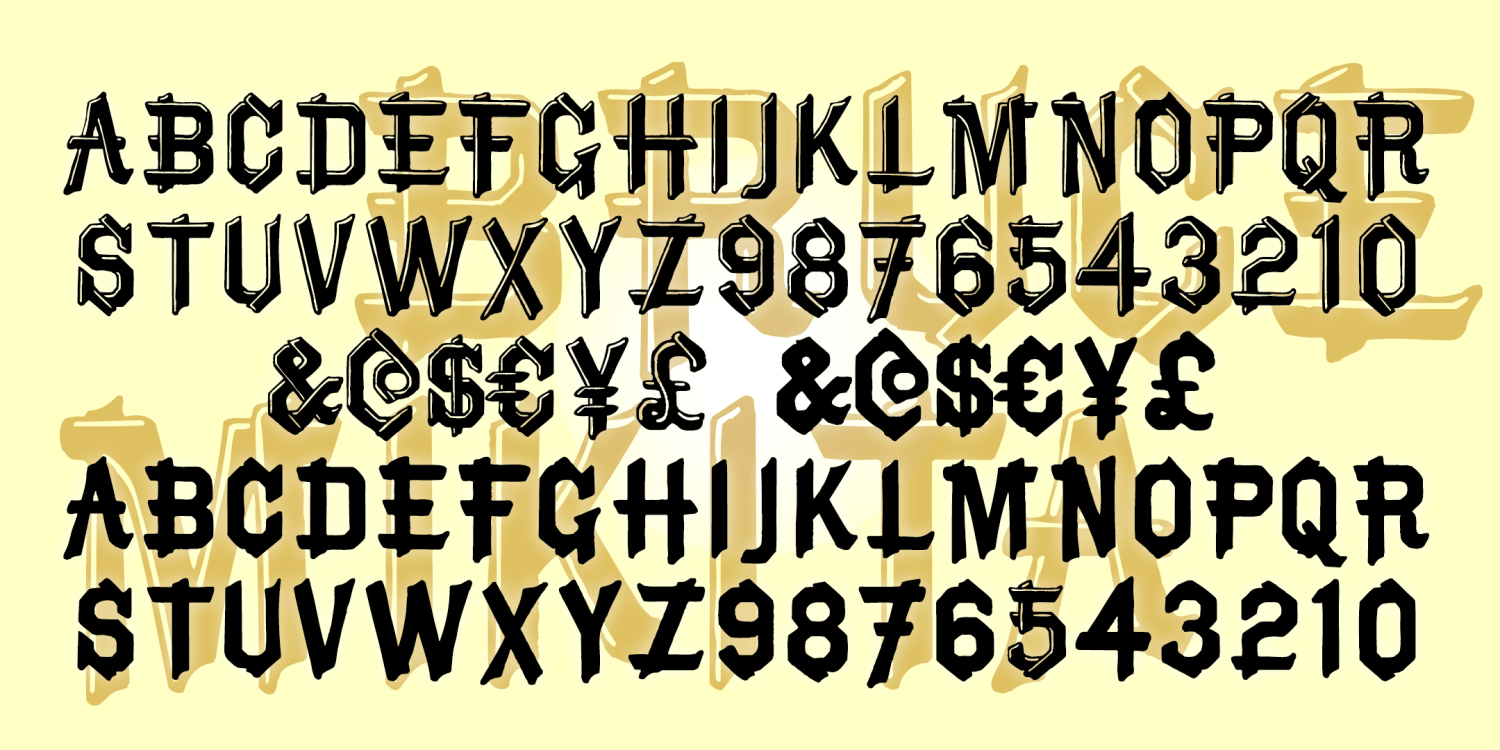
Bruce Mikita
BRUCE MIKITA was inspired by an analog font of the same name. It has a rustic, hand-crafted feel and suggests East Asian calligraphy. The highlight is a distinctive feature; I’ve also made a Solid version, which Dan X. Solo identified as “Lantern.”…